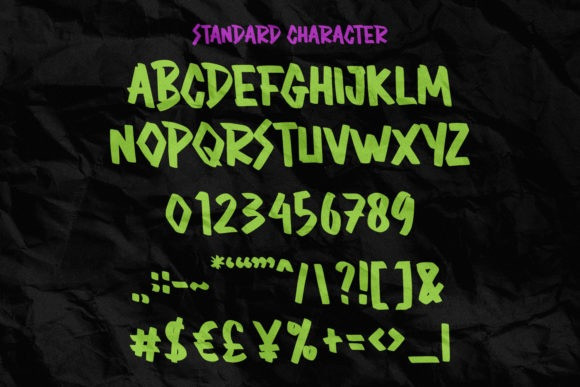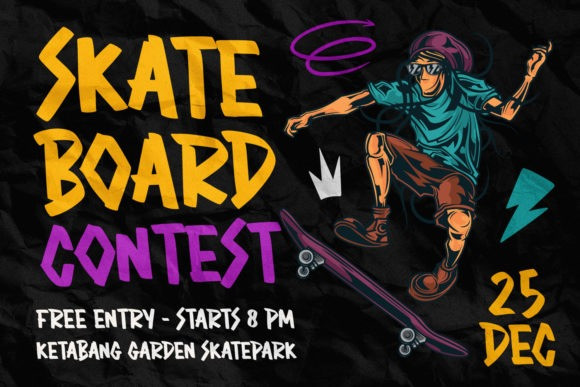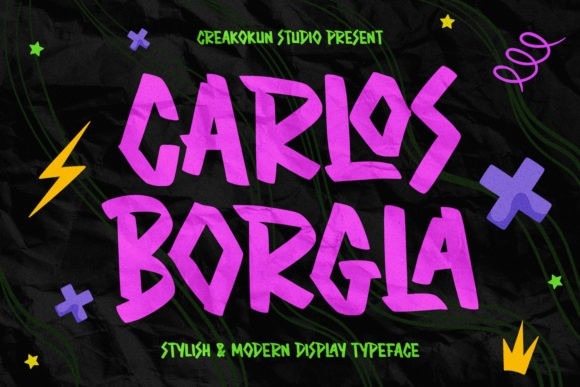
Carlos Borgla Font
Carlos Borgla Display Font is a cool and chunky lettered display font. Add this unique display font to each of your creative ideas, and notice how it makes them come alive!